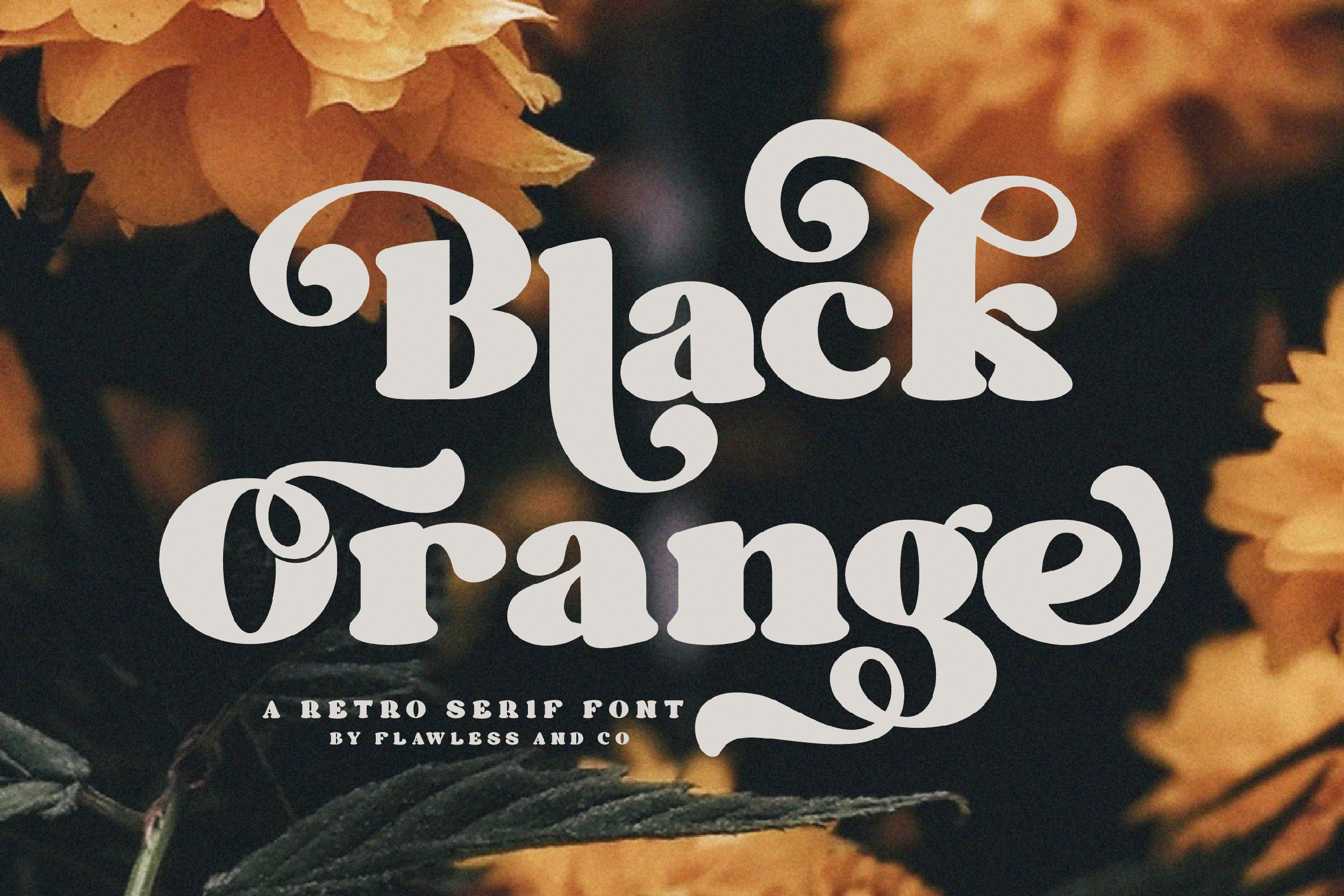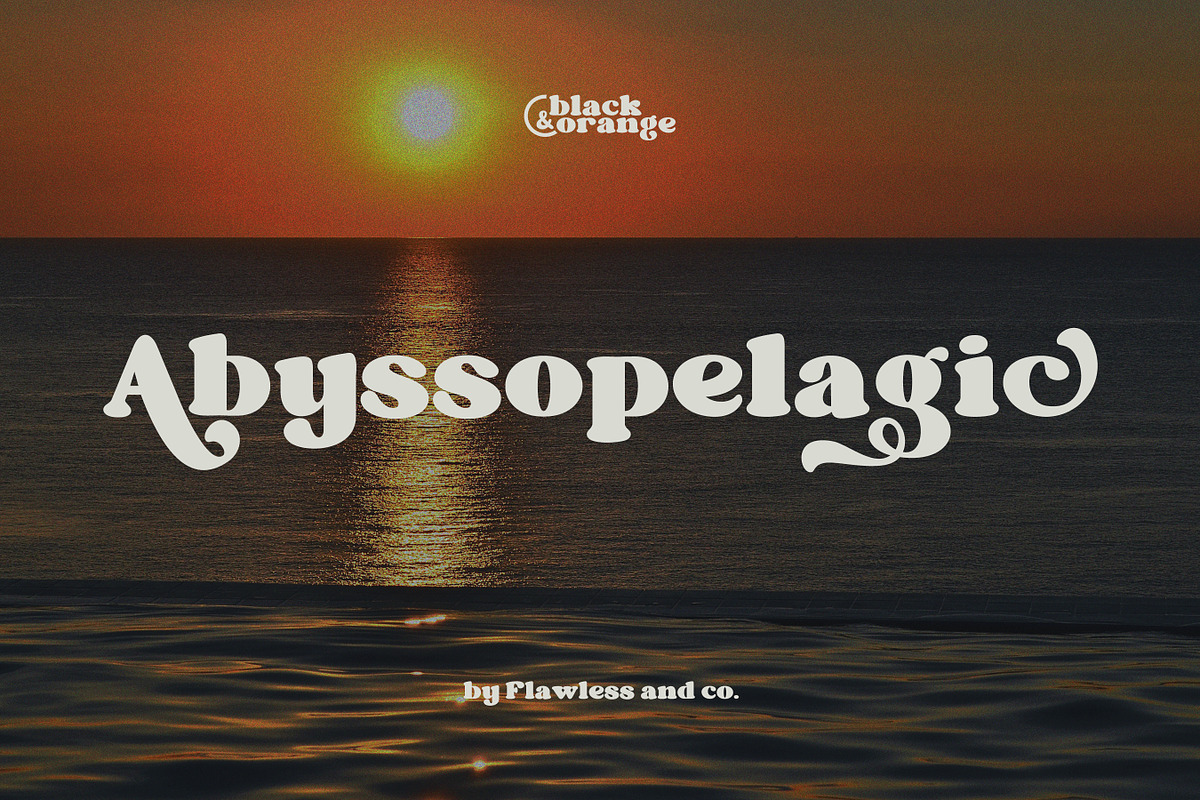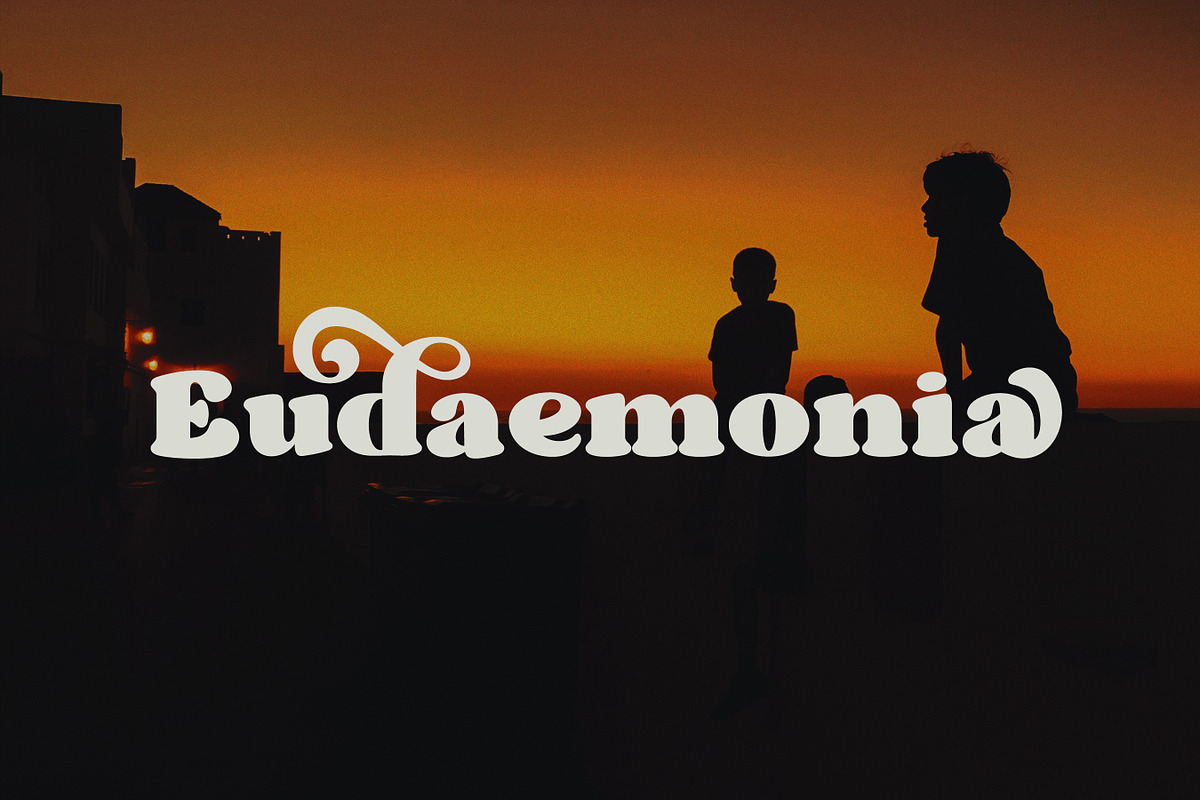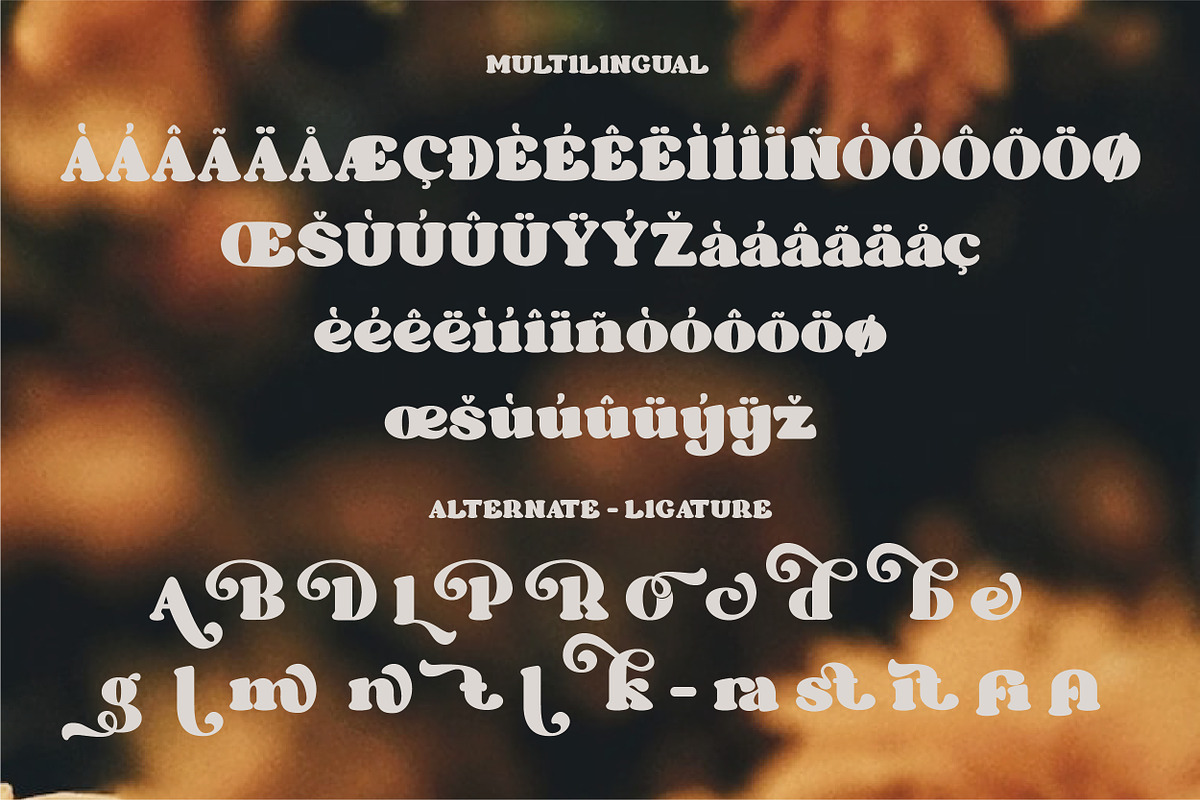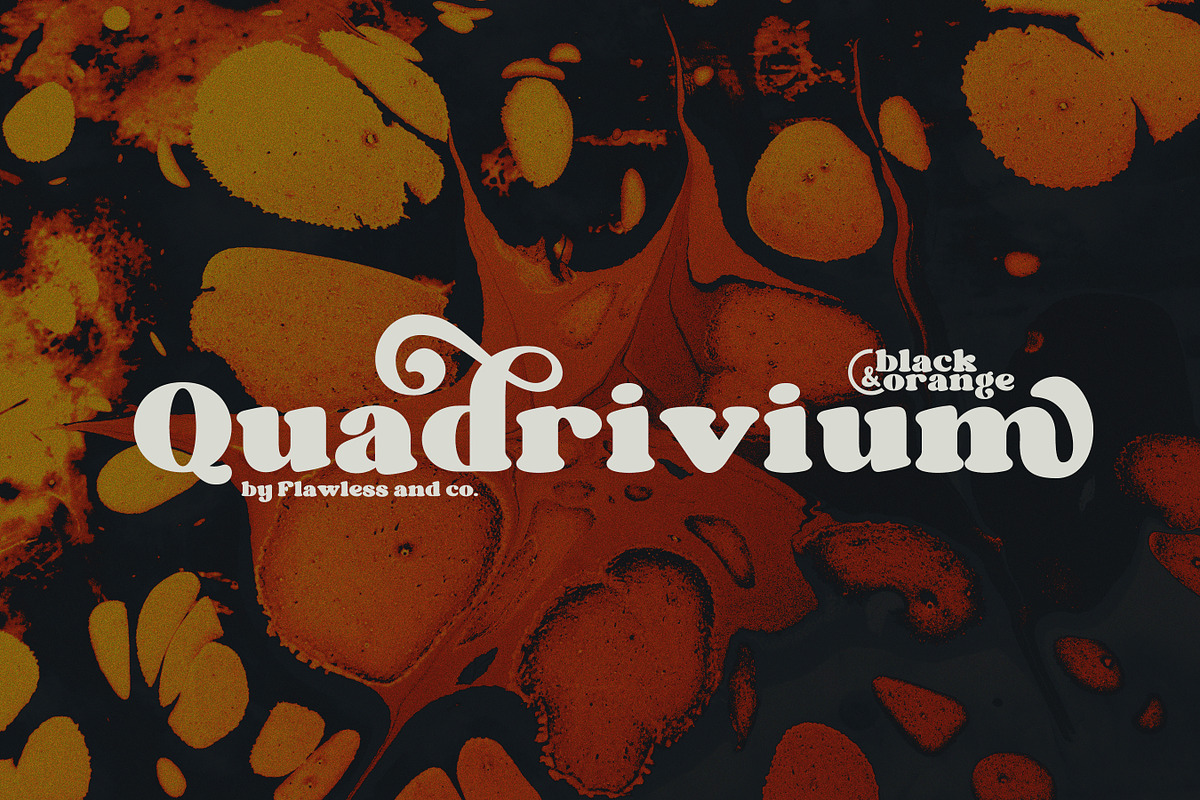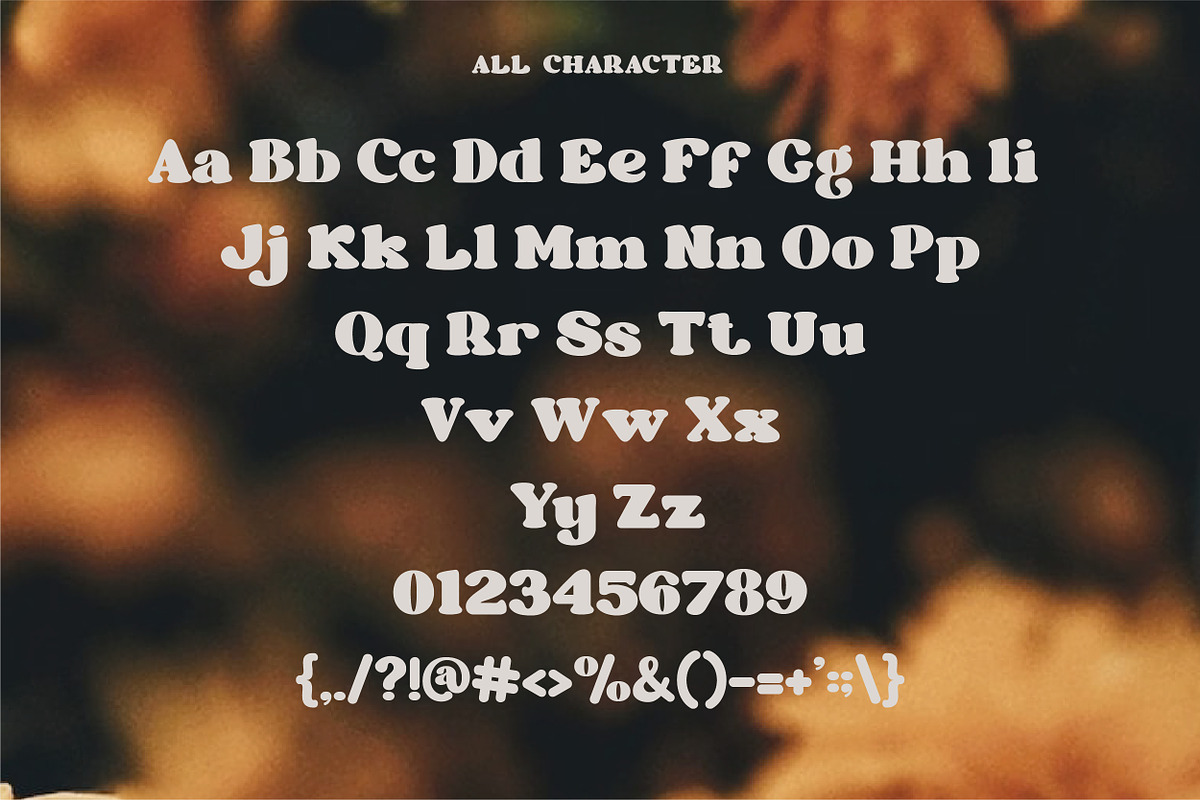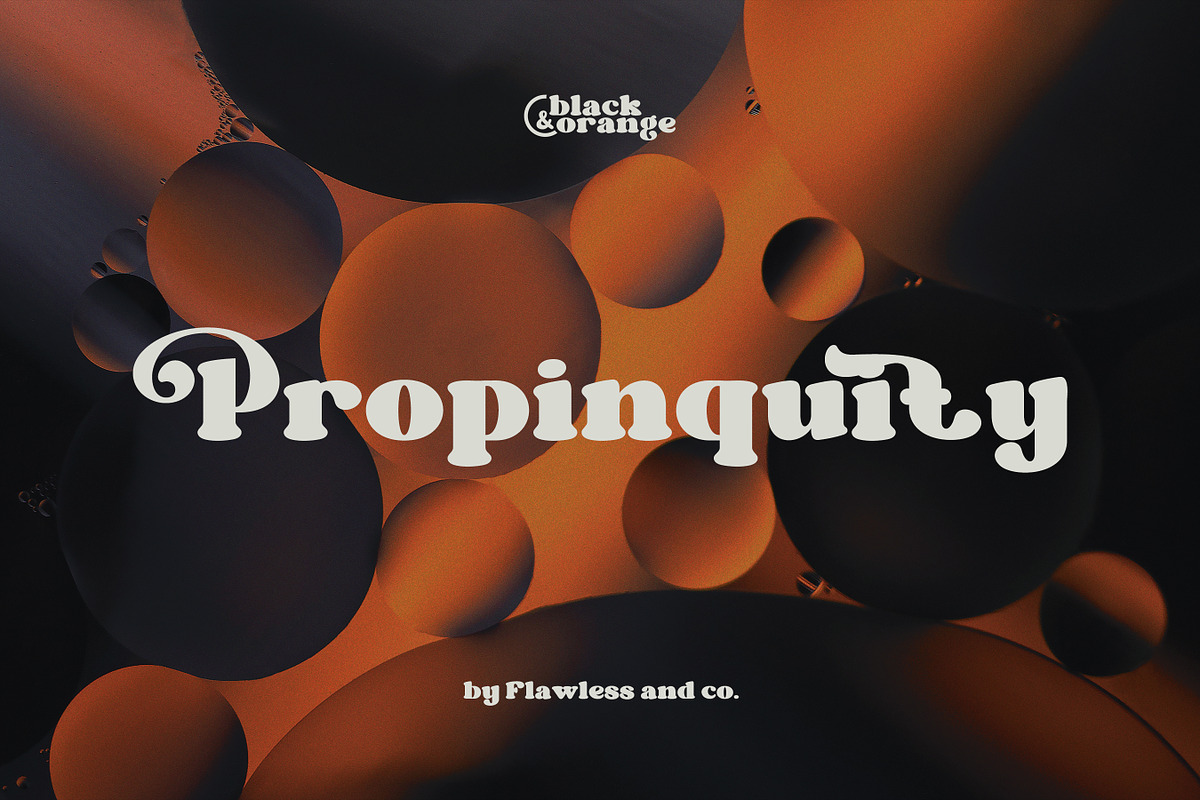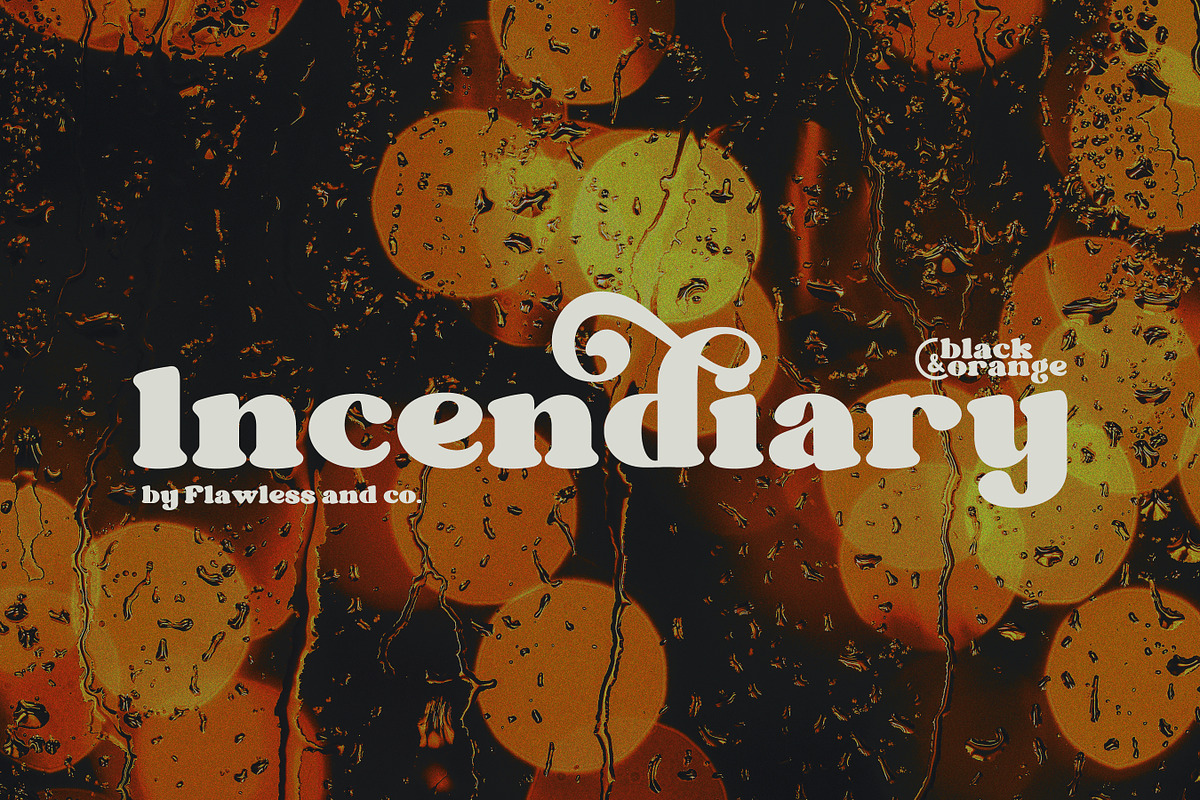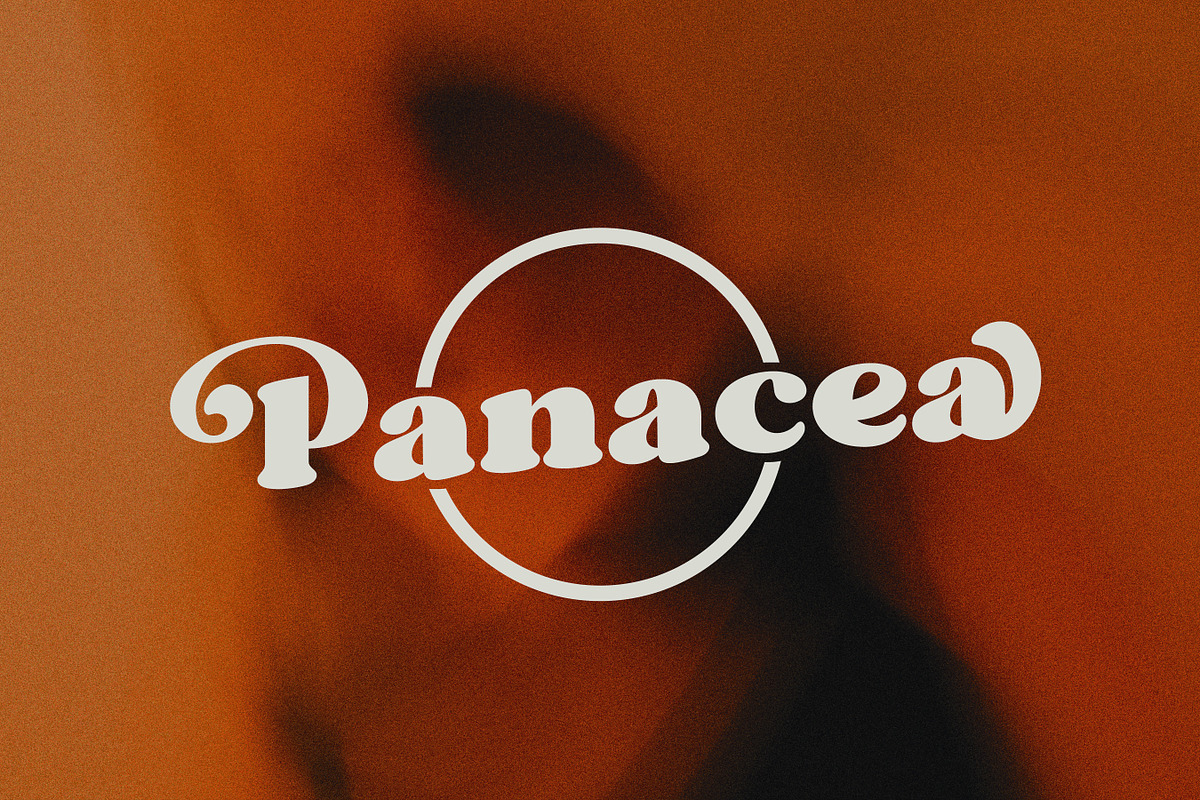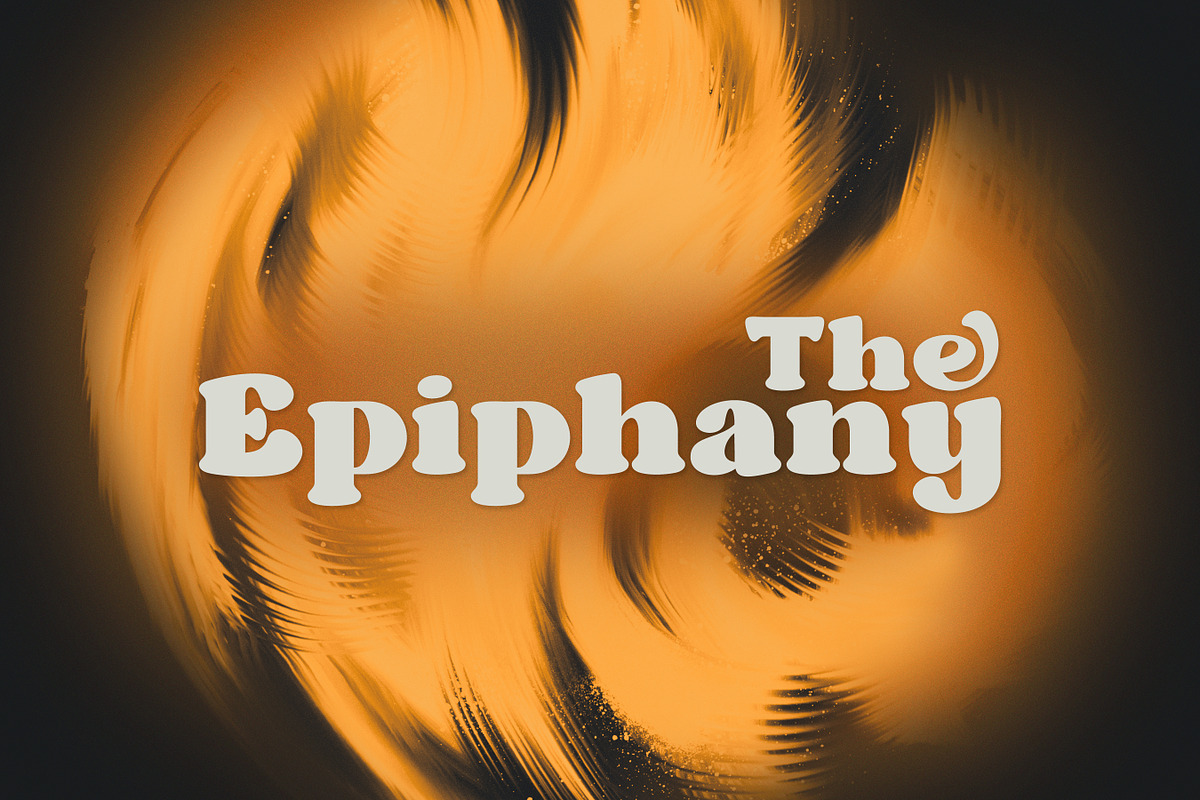
Black Orange - Retro Serif Font
Introducing "Black Orange" - A Retro Serif Font. Journey back in time to the classic and timeless era of design with "Black Orange," a captivating retro serif font that exudes the essence of vintage charm. With its elegant serifs and distinctive character, "Black Orange" brings a touch of nostalgia and sophistication to your creative projects.